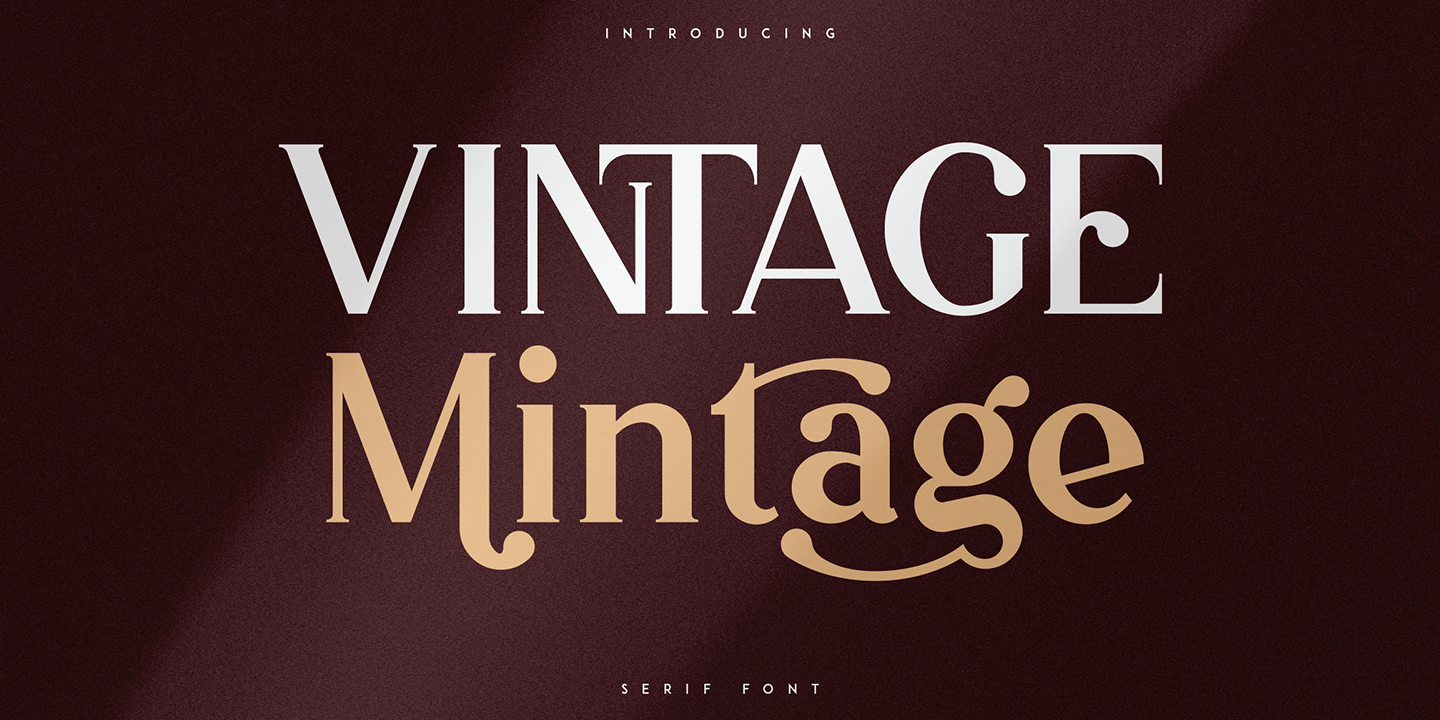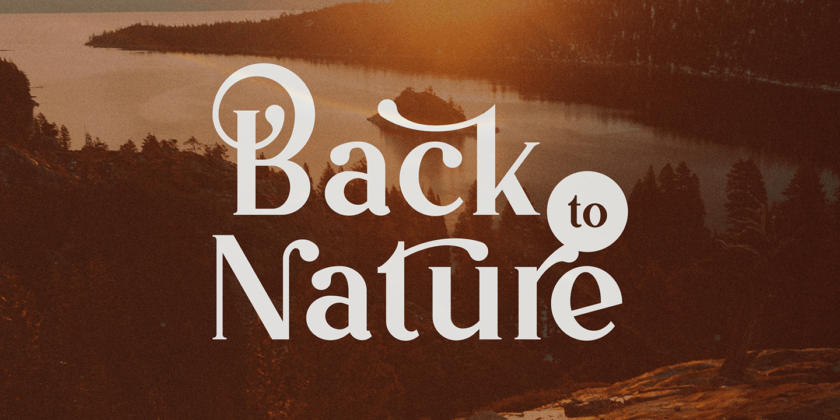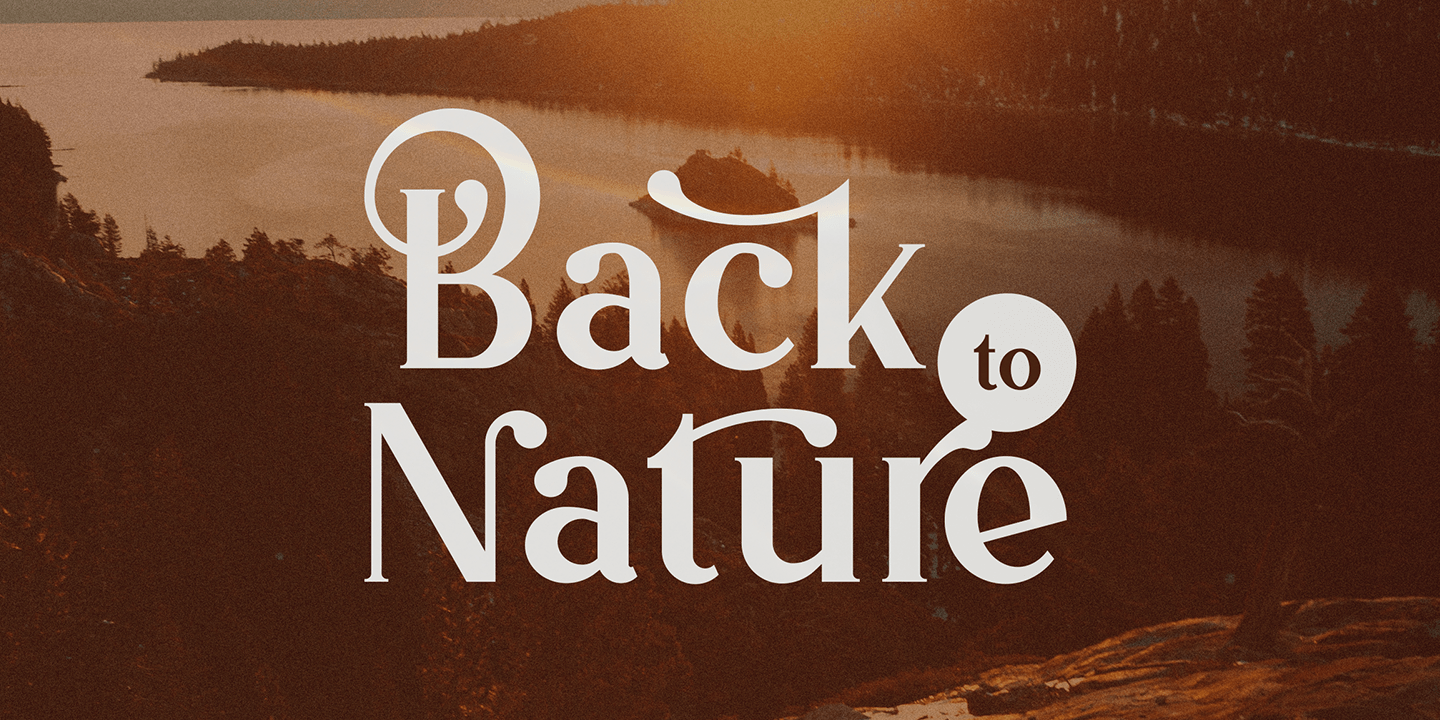
About Vintage Mintage
Introducing Vintage Mintage retro font Vintage Mintage is fat, rounded font. Retro serif font loaded with alternate and ligature glyphs to make you typography truly unique! Language Support : Belarusian, Bosnian, Bulgarian, Chechen, Macedonian,…